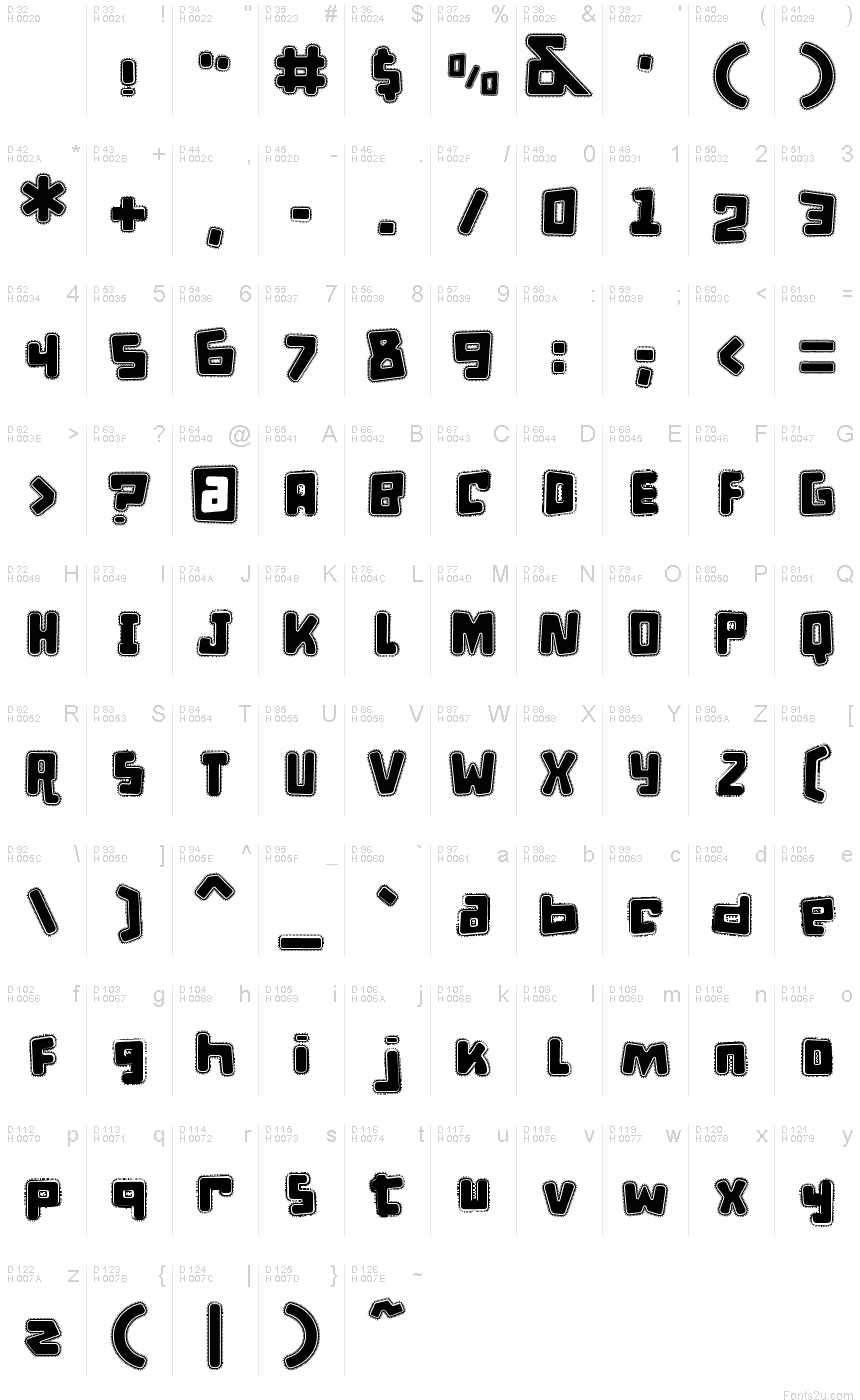
D Puntillas [E] Tiptoes Squid by deFharo is a free eroded display font with broad rounded letters, bristling edges, and a deliberately unruly silhouette. Stitched inner marks resemble patches on an inked cartoon cutout.
Its scrappy punk and comic-book character is a strong fit for gig posters and album covers. Streetwear graphics and game title cards can also use the oversized forms as part of the artwork rather than ordinary lettering. The sewn details particularly suit monster, skate, and offbeat youth-culture themes.
D PUNTILLAS [E] TIPTOES SQUID La familia tipográfica "d puntillas" es un conjunto de 6 fuentes display combinables para la creación de títulos, púramente tipográficos, a dos o tres colores. El desarrollo de esta tipografía surge de una propuesta, no aceptada, de un logotipo de 6 letras para un negocio llamado cactus. A partir del diseño original he creado el resto del alfabeto. Y combinables también han sido los siguientes 3 conceptos por los cuales he nominado a este conjunto de fuentes: Pasar d puntillas (to tiptoe): Tratar algo de pasada, sin profundizar ni insistir en ello.(DUE)... porque es un diseño tipográfico experimental. Puntillas [a] (Lace): Encaje generalmente estrecho que forma ondas o picos en una de sus orillas y que se pone como adorno en el borde de pañuelos, toallas, vestidos, etc.(RAE)... por el aspecto de las letras con puntillas. Puntillas de calamar (Tiptoes Squid): Caprichosos calamares de tamaño diminuto, lo ideal es tomarlos fritos con una cervecita, echando humo a la orilla del mar de un verano cualquiera... en honor a Joao Augusto meu sobrinho brasileriro al que le gustan mucho las puntillas de calamar.